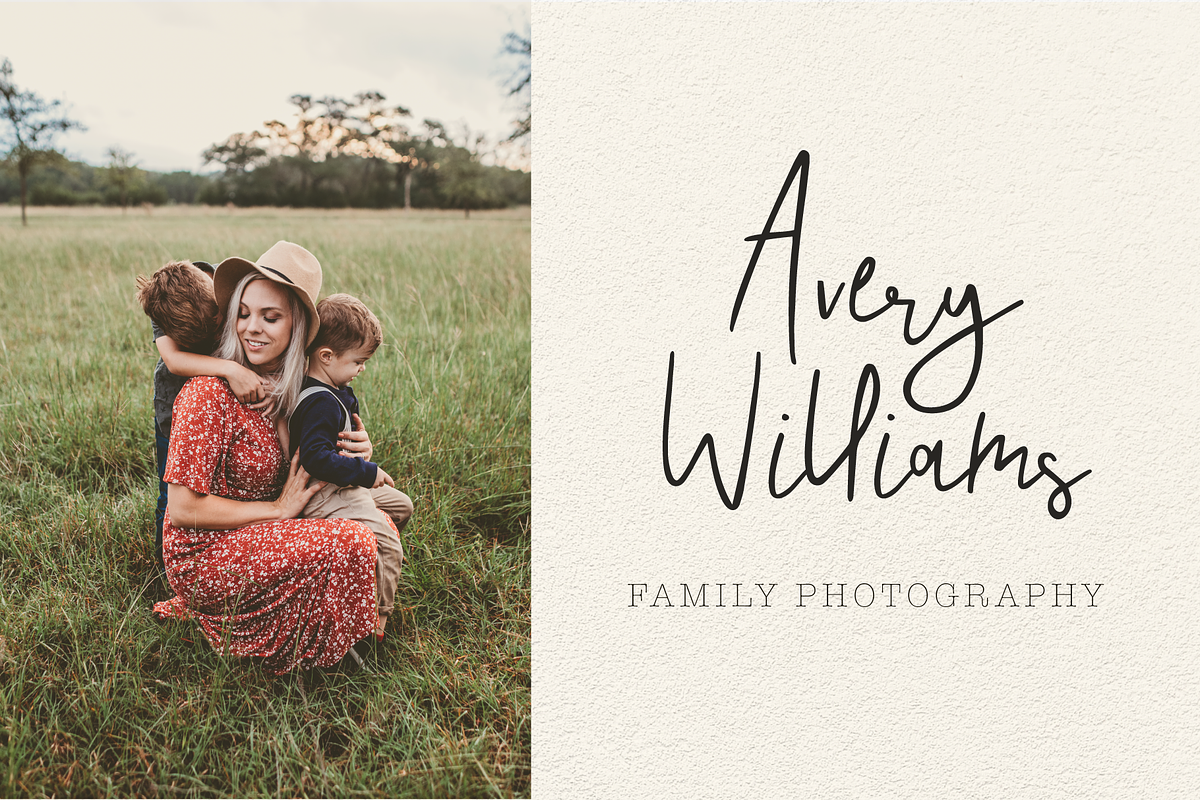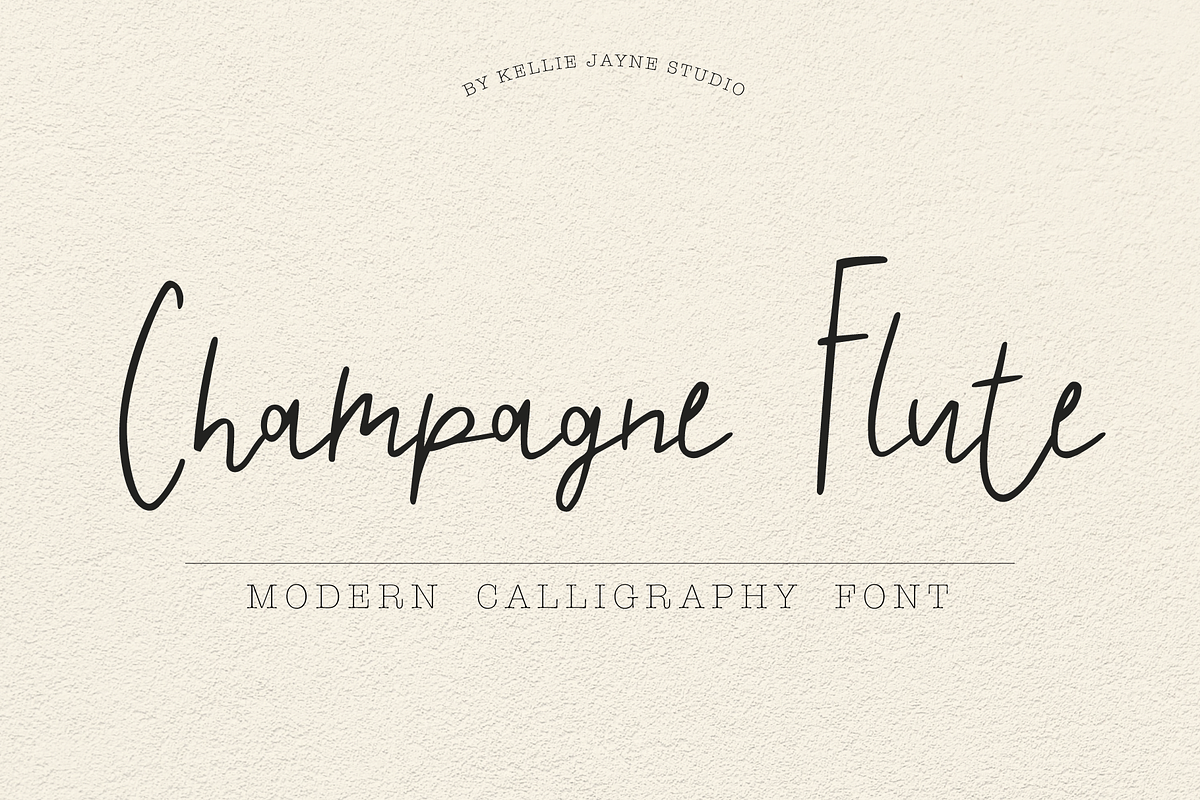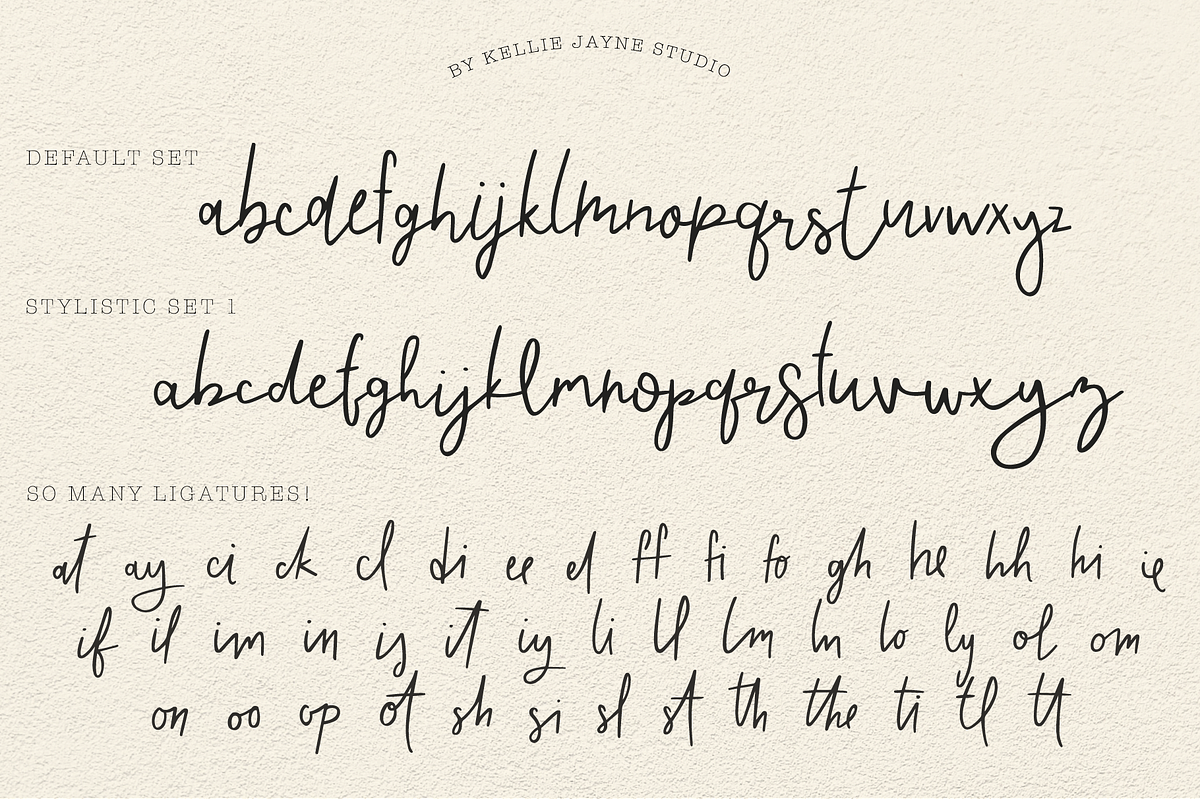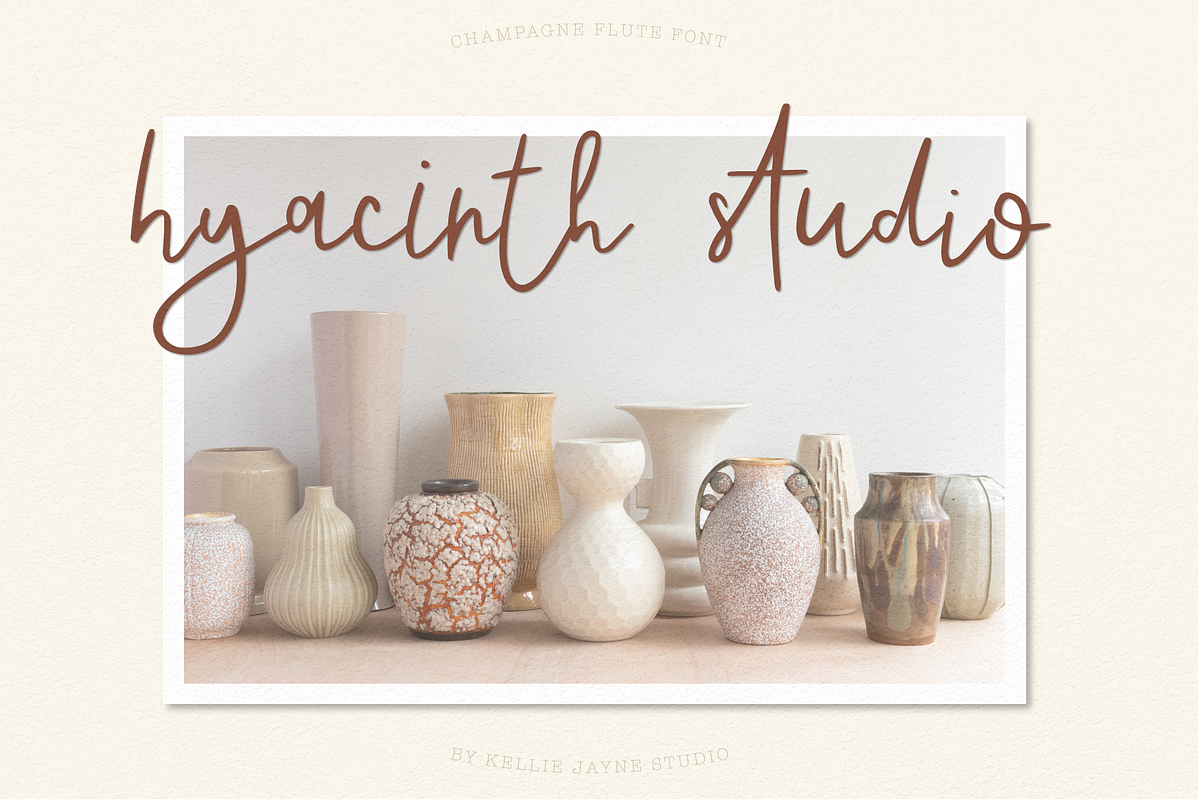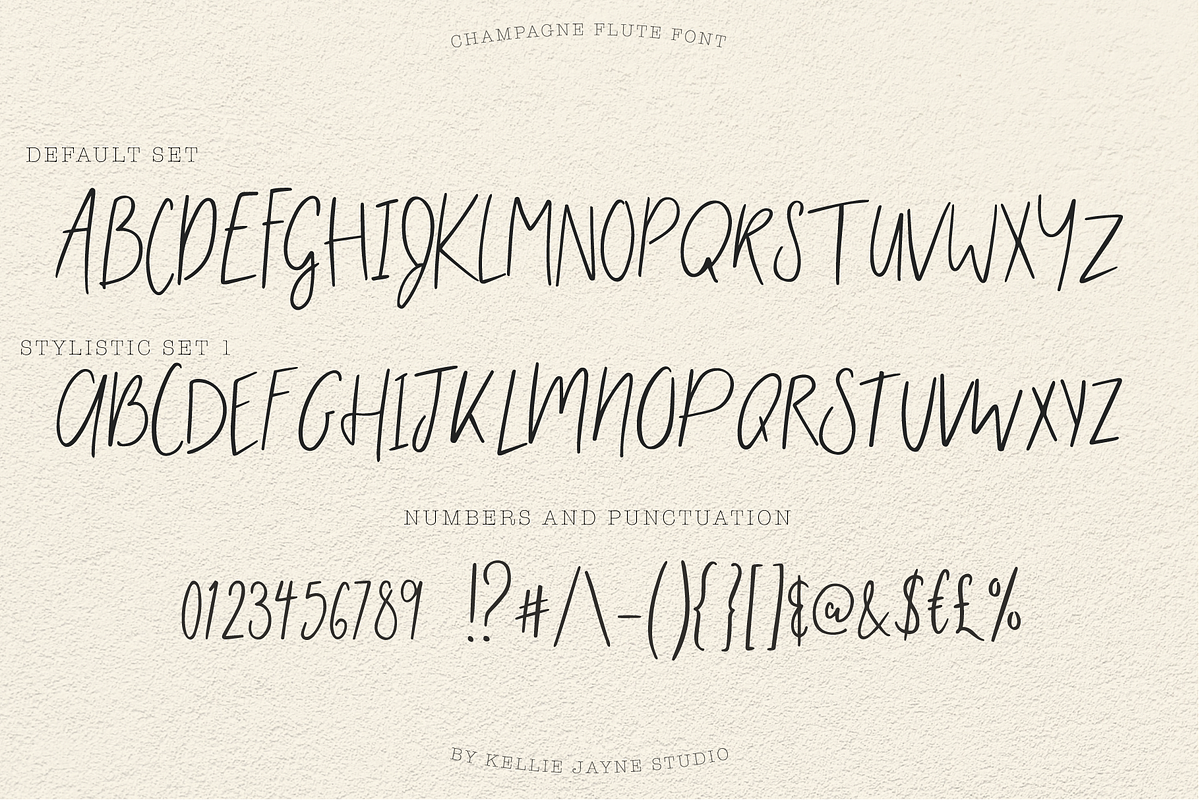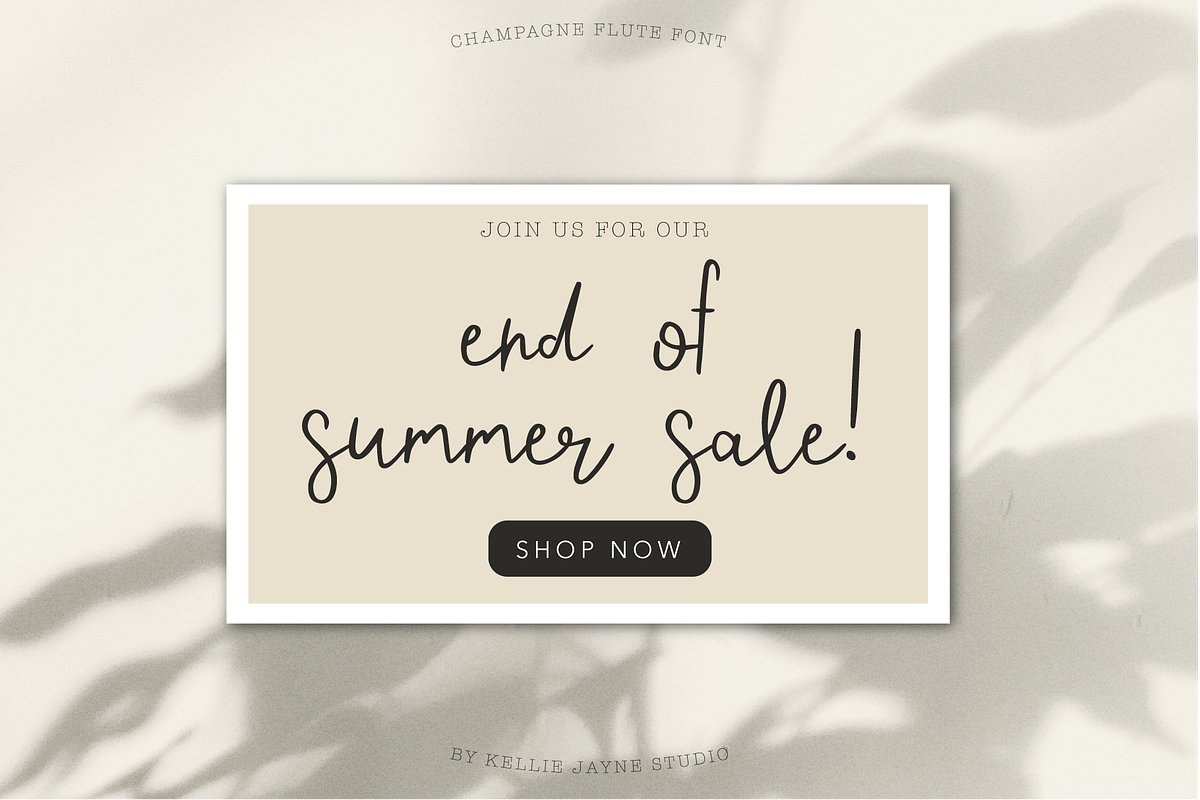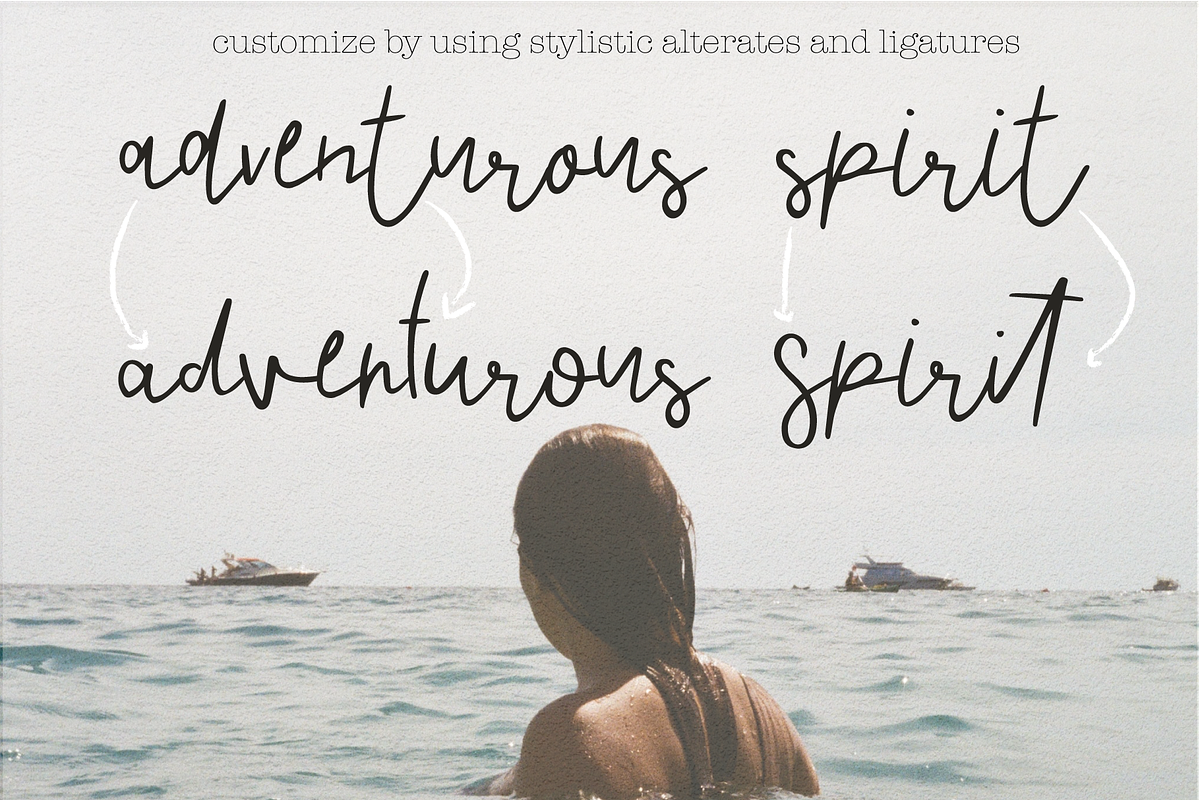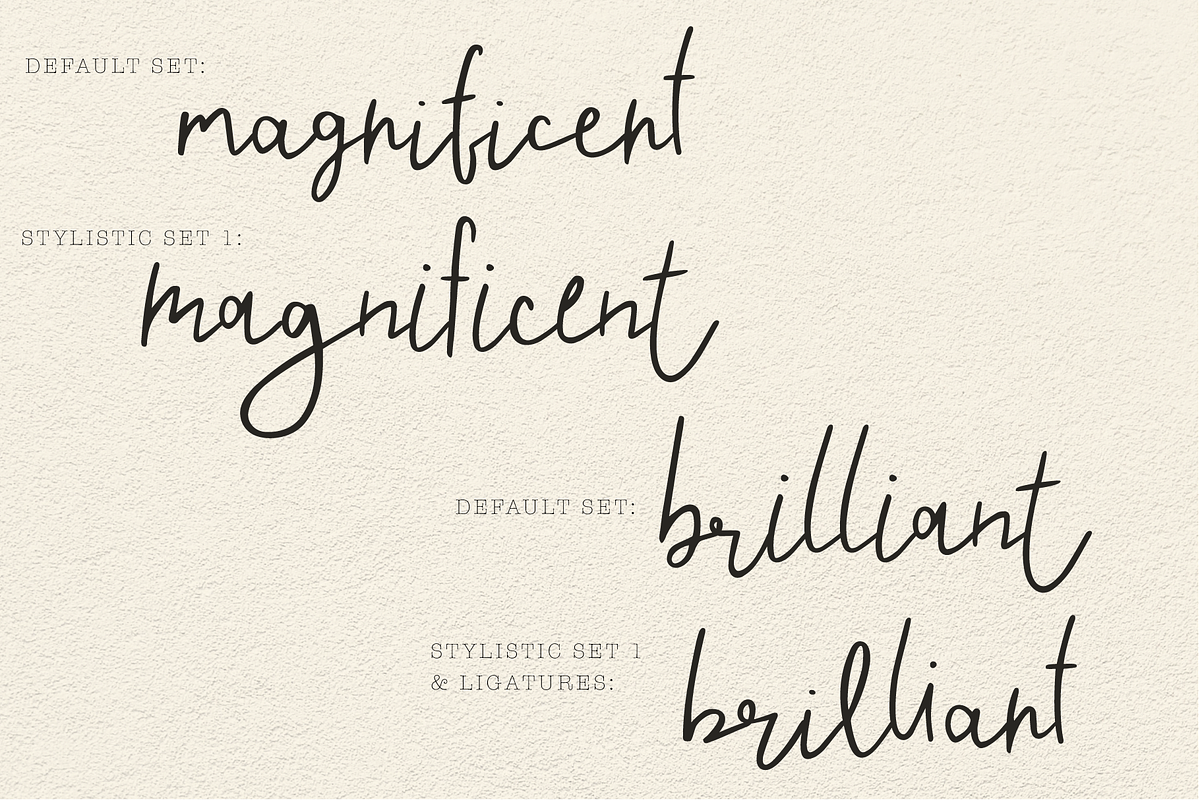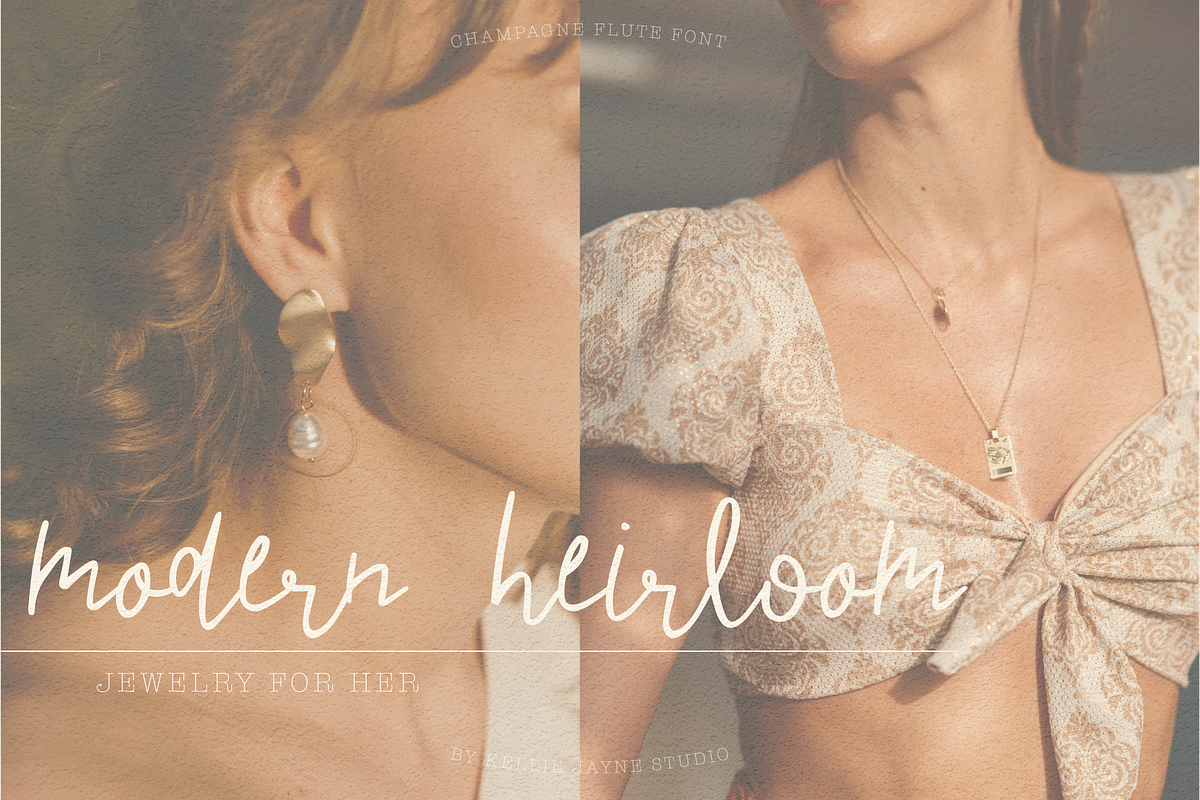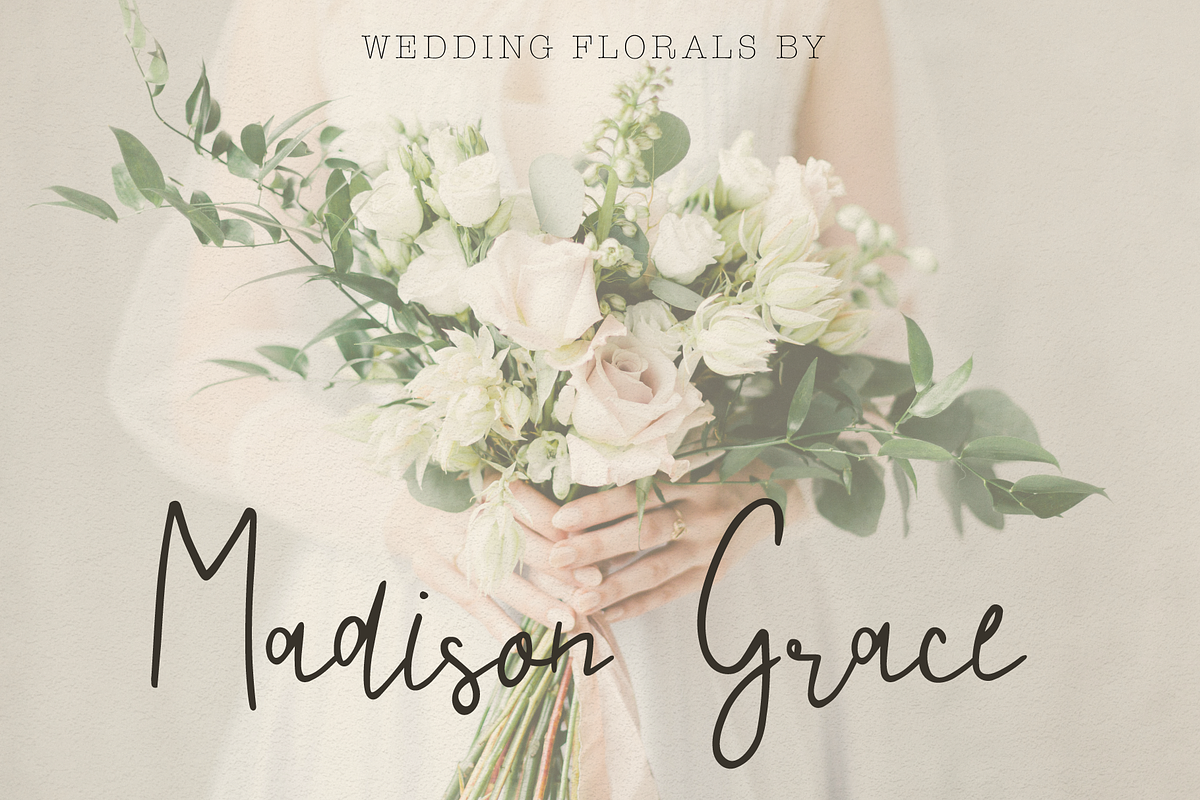
Champagne Flute Calligraphy Font
Champagne Flute is an elegant and sexy calligraphy font with a modern appeal. It is inspired by little black dresses, oysters at dinner, nights out, and of course, champagne. This font is excellent for branding, wedding invitations, magazines, and advertising.
Champagne Flute features:
- default characters plus an entire stylistic set a-z and A-Z
- punctuation and numbers
- over 40 ligatures
- multilingual support/accented characters